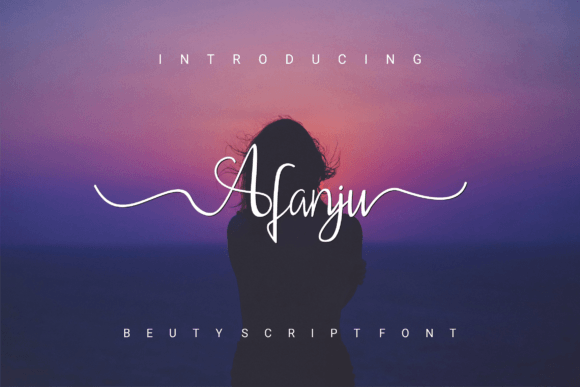
Afanju Font: Adding a Touch of Romance to Your Designs
Afanju is an enchanting script font that has captured the hearts of designers and crafters alike. Its elegant and flowing curves make it a versatile font that can be used in a wide range of applications, from greeting cards to headlines. If you’re looking to add a romantic feel to your next project, Afanju font is an excellent choice.
The Characteristics of Afanju Font
Afanju font is a beautifully crafted script font that boasts a unique and distinctive style. Its letters are adorned with intricate swashes and flourishes, giving it a luxurious and sophisticated feel. The font is highly legible, making it perfect for use in both digital and print designs.
Uses of Afanju Font
Afanju font is incredibly versatile and can be used in a variety of design projects. Here are some of the most popular uses of this enchanting font:
• Greeting Cards: Afanju font is perfect for creating romantic greeting cards for special occasions such as weddings, anniversaries, and Valentine’s Day.
• Headlines: The font’s elegant and cursive style makes it an excellent choice for headlines, adding a touch of sophistication to any design.
• Invitations: Afanju font is ideal for creating beautiful and elegant invitations for weddings, parties, and other special events.
• Branding: The font’s unique and distinctive style makes it perfect for use in branding and packaging design, helping to create a memorable and lasting impression.
Benefits of Using Afanju Font
There are many benefits to using Afanju font in your designs. Here are some of the most significant advantages:
• Romantic Feel: Afanju font adds a touch of romance and elegance to any design, making it perfect for projects that require a sophisticated and luxurious feel.
• Versatility: The font’s versatility makes it suitable for use in a wide range of design projects, from greeting cards to headlines.
• Legibility: Afanju font is highly legible, making it perfect for use in both digital and print designs.
• Uniqueness: The font’s unique and distinctive style makes it stand out from other fonts, helping to create a memorable and lasting impression.
Tips for Using Afanju Font
Here are some tips for using Afanju font in your designs:
• Use it Sparingly: Afanju font is a bold and elegant font, so it’s best to use it sparingly to avoid overwhelming the design.
• Pair it with Other Fonts: Afanju font pairs well with other fonts, such as sans-serif fonts, to create a beautiful and harmonious design.
• Experiment with Colors: Afanju font looks stunning in a variety of colors, so don’t be afraid to experiment and find the perfect color to match your design.
Afanju font is a beautiful and enchanting script font that is perfect for adding a romantic feel to your designs. Its versatility, legibility, and unique style make it an excellent choice for a wide range of design projects, from greeting cards to headlines. With its elegant and flowing curves, Afanju font is sure to capture the hearts of designers and crafters alike.